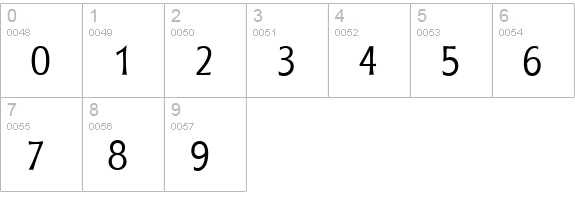
RoundestSerial-Light-Regular is a refined, elegant variant in the RoundestSerial typeface family \xE2\x80\x94 well suited to elegant body text, refined sub-headings, and luxury branding.
RoundestSerial-Light-Regular is a charming and versatile font that exudes a sense of playfulness and modernity. With its perfectly rounded edges and clean lines, this font is ideal for a wide range of design projects, from branding to editorial design. The Light weight of the font adds a delicate touch, making it perfect for conveying a sense of elegance and sophistication. What sets RoundestSerial-Light-Regular apart is its unique ability to strike a balance between being both whimsical and professional, making it a great choice for designers looking to add a touch of personality to their work. Whether you're creating a logo, website, or print materials, this font is sure to make a statement. Best of all, RoundestSerial-Light-Regular is completely free to download at FontsMarket.com, making it accessible to designers of all levels. Don't miss out on this fantastic font that will elevate your designs to the next level!